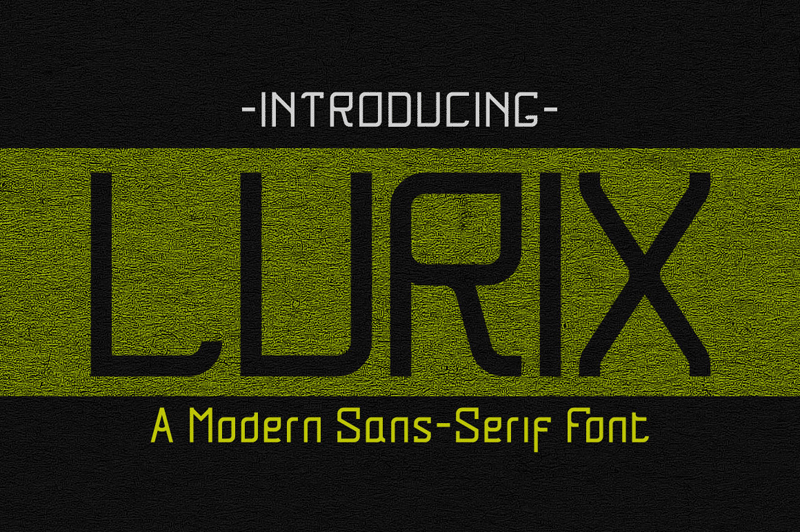
Font name: | Lurix |
Author: | Ahmed Crvst |
Note by Ahmed Crvst | |
Lurix is a modern sans serif font. Inspired by sci-fi movie, Lurix has its own particular warm appearance of modern touch. With its extensive and open proportions, it makes a grand appeareance for your brand or project. |